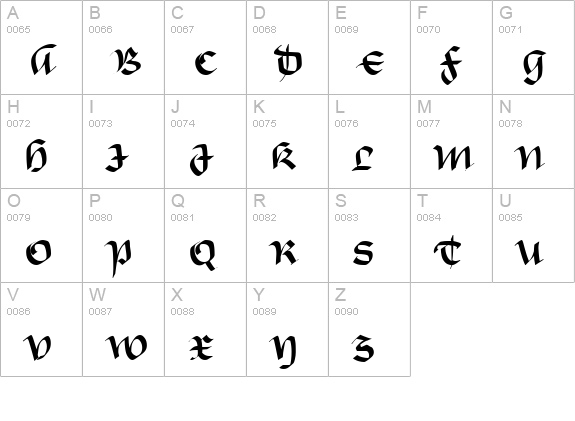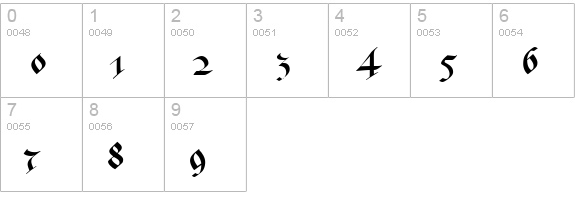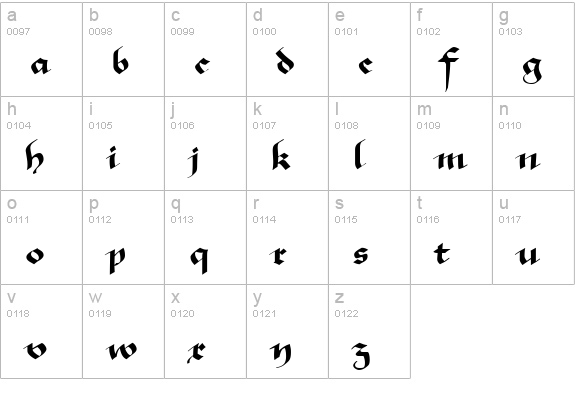
MA GKursiv1 Font Details
MA GKursiv1 is a stunning and elegant font that exudes a sense of sophistication and refinement. With its delicate and graceful strokes, this font captures attention and adds a touch of class to any project. Whether you are designing a logo, creating a poster, or crafting a stylish invitation, MA GKursiv1 is the perfect choice to make a lasting impression. What sets MA GKursiv1 apart is not only its beauty but also the fact that it is completely free. Yes, you heard that right! This incredible font is freely available to download at FontsMarket.com. Now you can elevate your designs without breaking the bank. Say goodbye to expensive fonts and hello to MA GKursiv1, the font that combines elegance with affordability. With its wide range of characters and versatile design, MA GKursiv1 can be used for various purposes. Its clean and legible style ensures that your message is conveyed clearly and effectively. Whether you need to create professional documents, eye-catching advertisements, or captivating headlines, MA GKursiv1 has got you covered. Downloading and installing MA GKursiv1 is a breeze. Simply head over to FontsMarket.com, search for MA GKursiv1, and click the download button. Within moments, you'll have this incredible font at your fingertips, ready to transform your designs into works of art. So why wait? Embrace the beauty and versatility of MA GKursiv1 today. Download it for free at FontsMarket.com and let your creativity soar to new heights.